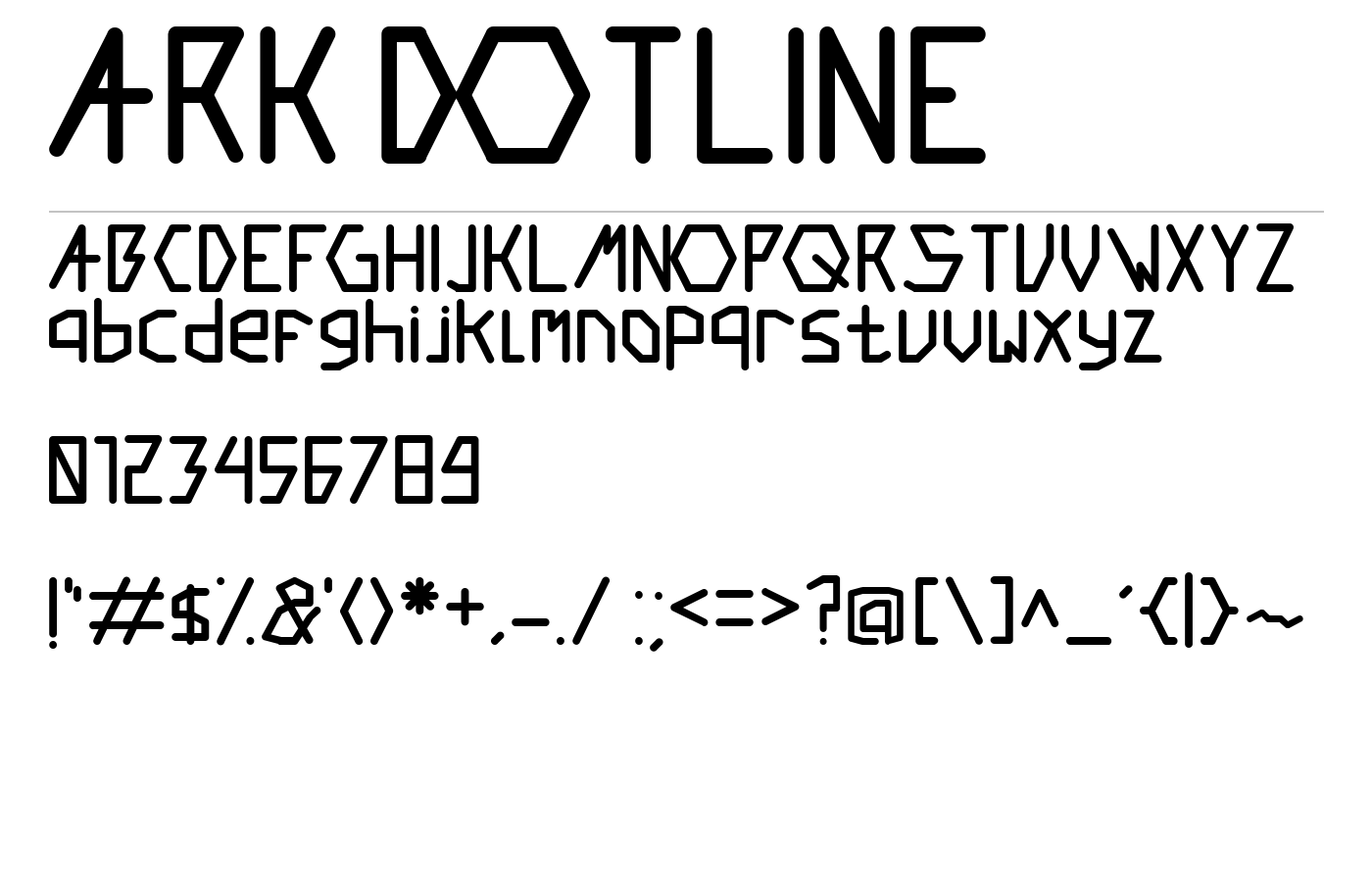
ARK DOTLINE is a distinctive sans serif font with a futuristic and geometric style, characterized by thin, uniform strokes and sharp angles that create a clean, technical appearance. Its narrow width and unique letterforms, including angular curves and stylized characters, give it a modern, digital feel ideal for tech, sci-fi, and innovative branding. This font works best in logos, headlines, and digital interfaces where a sleek, cutting-edge look is desired.
| Font family | ARK DOTLINE Font |
| Designer | Ariq Aufa Muzakky |